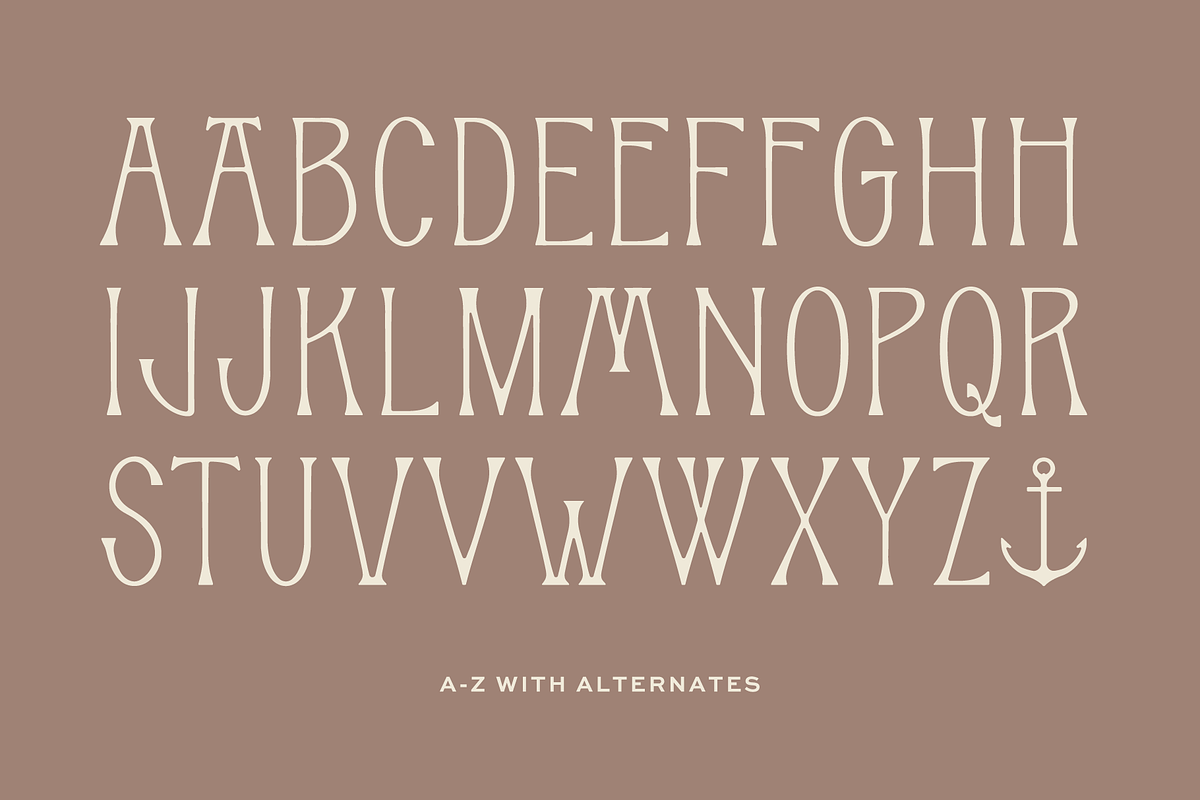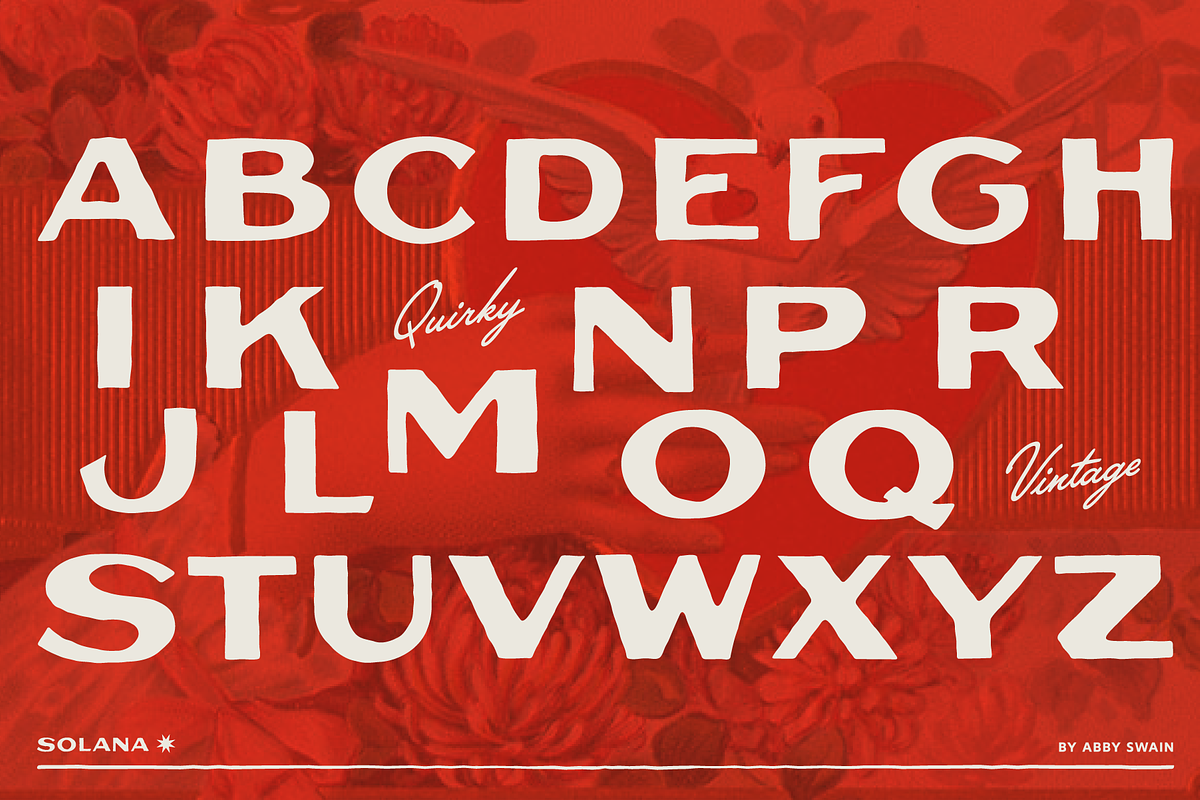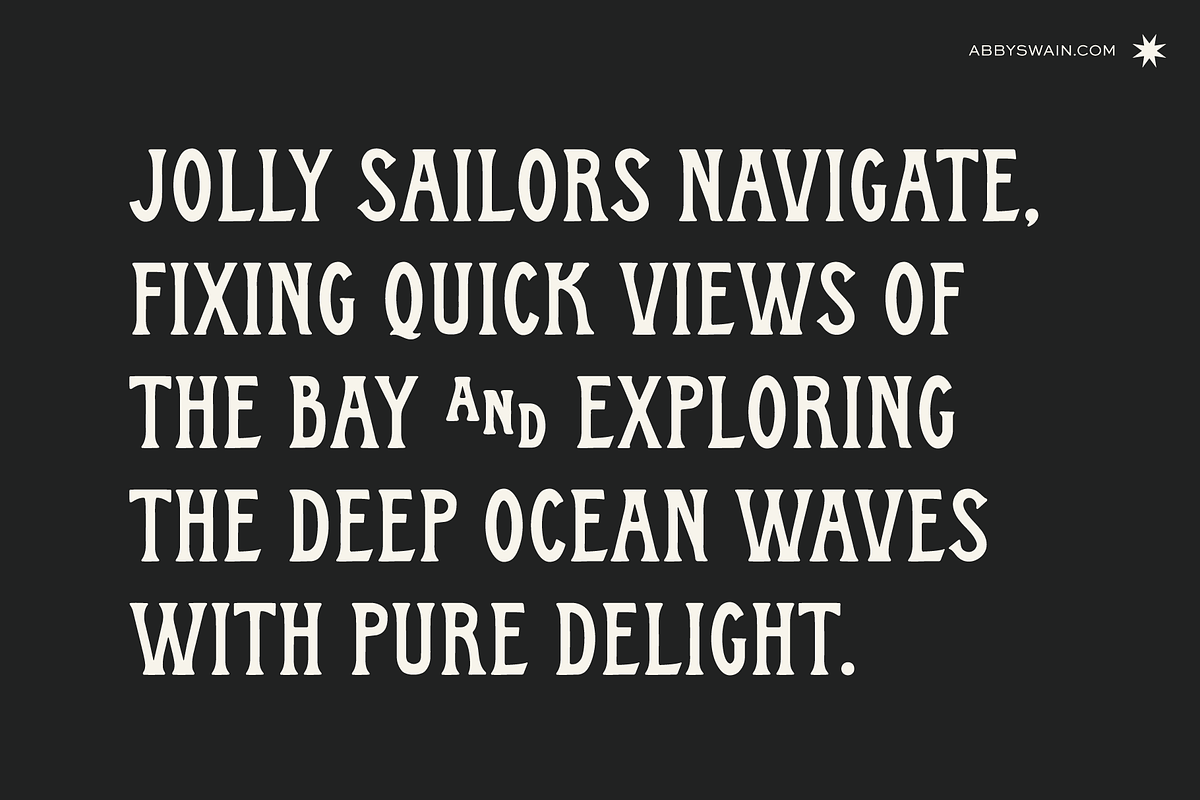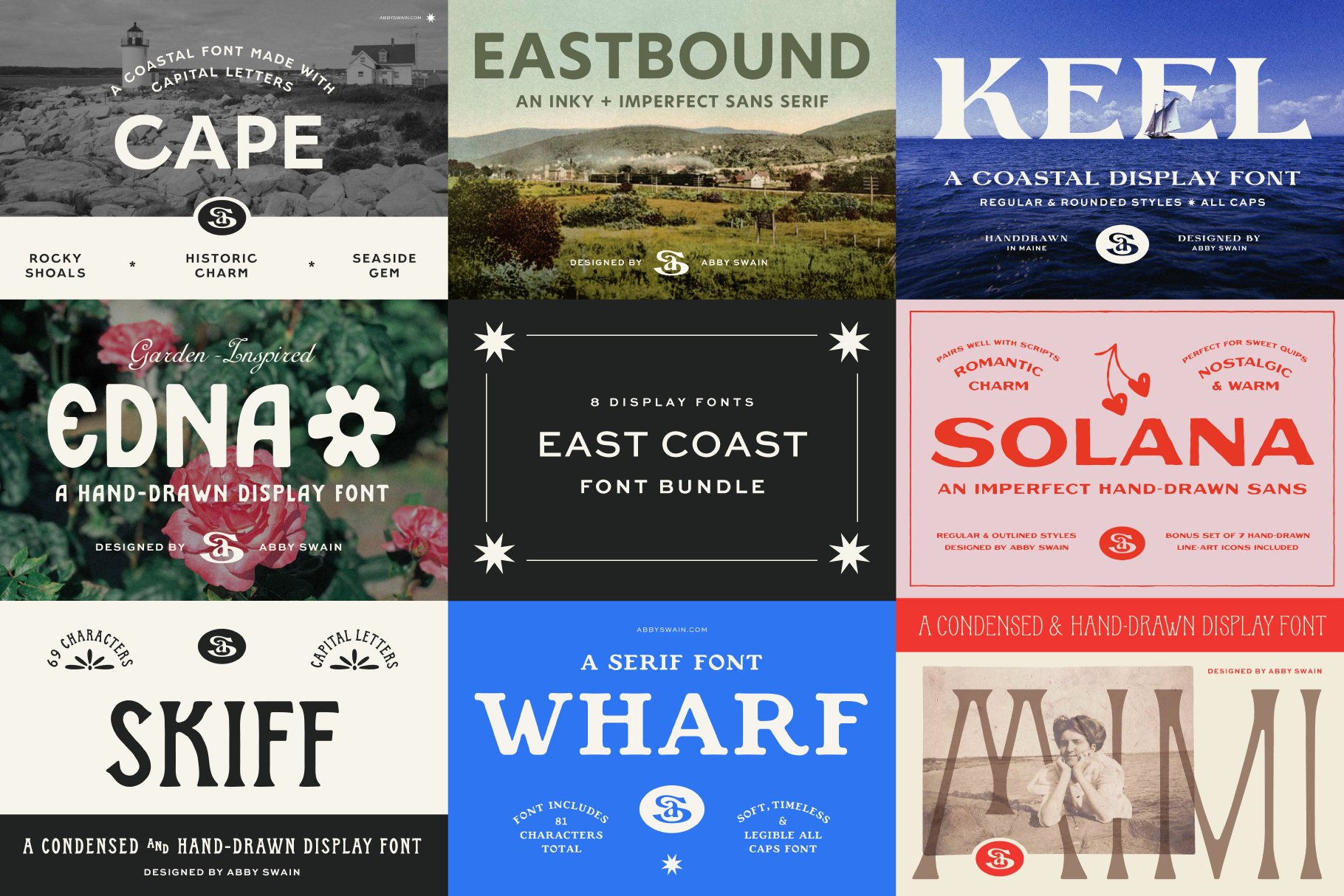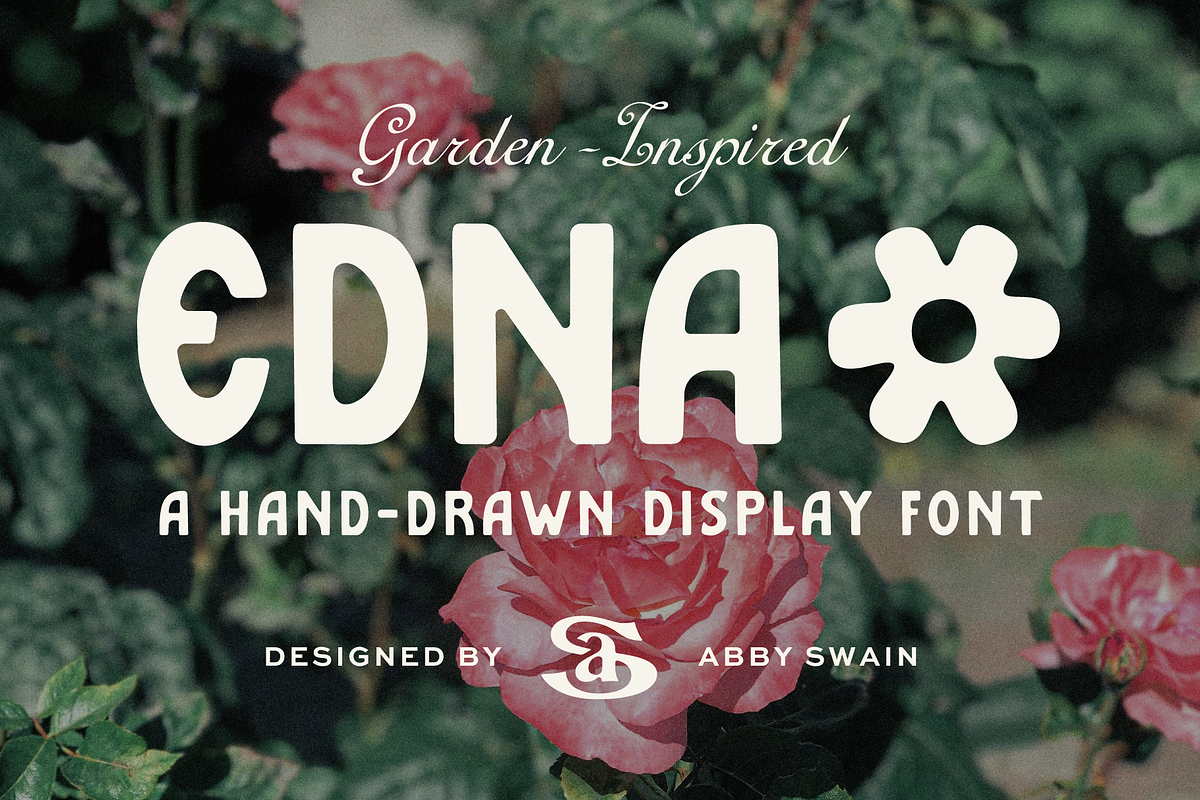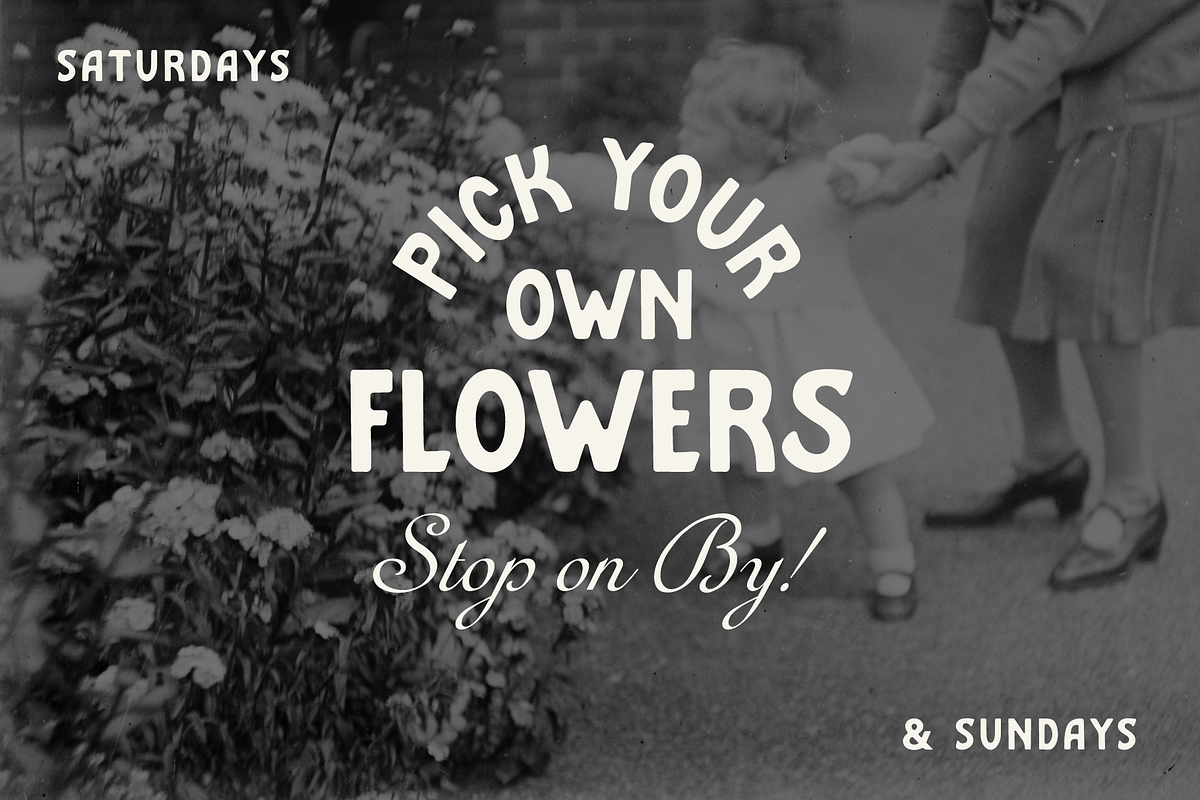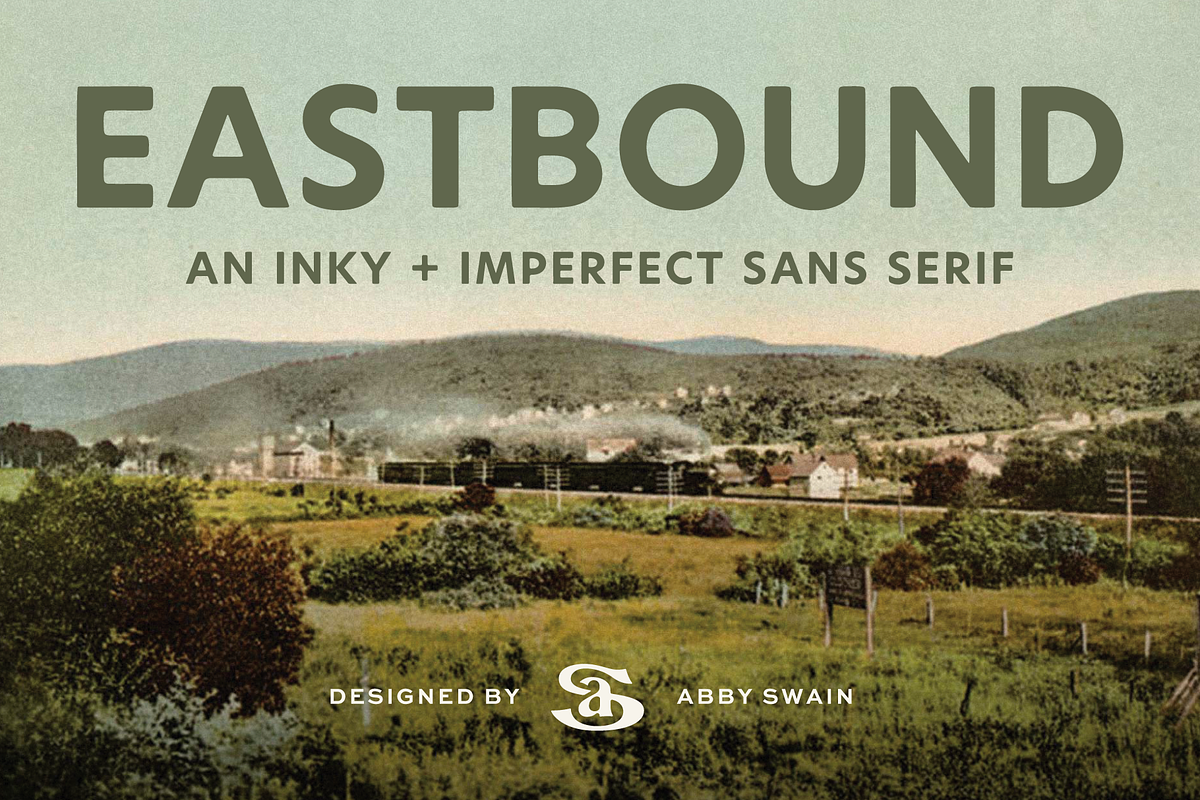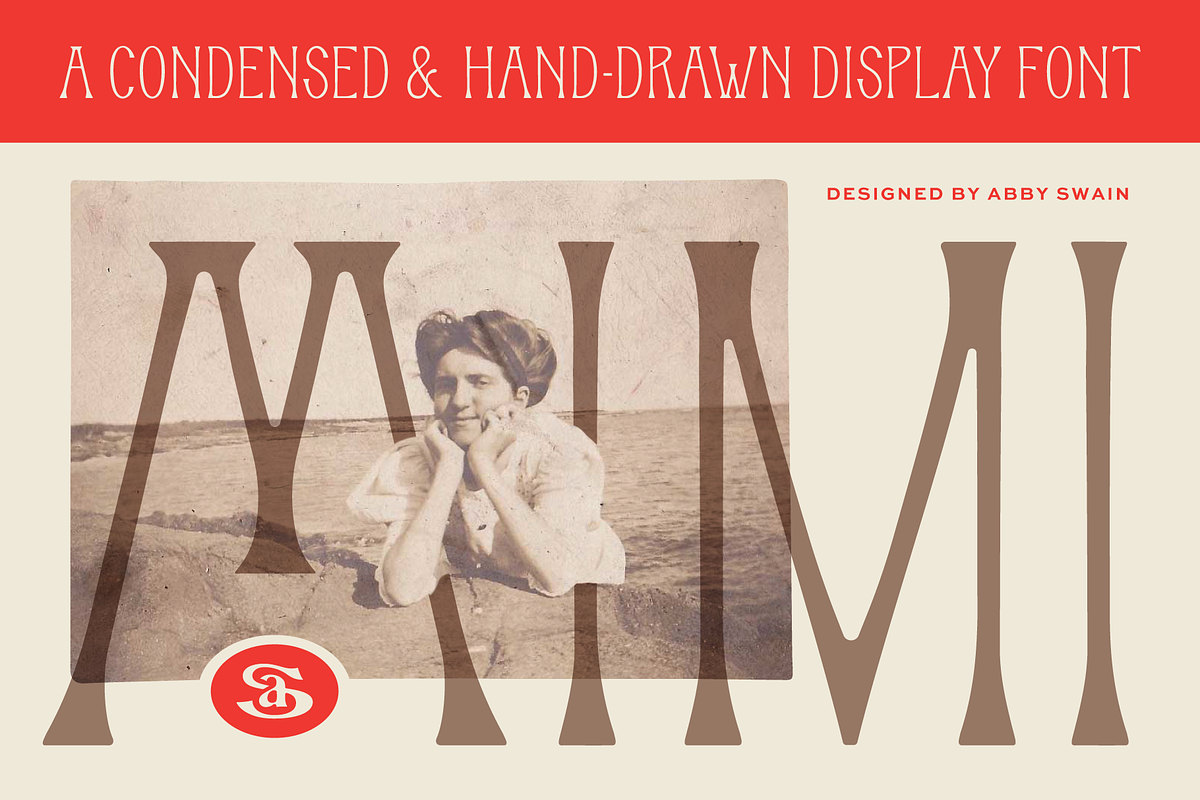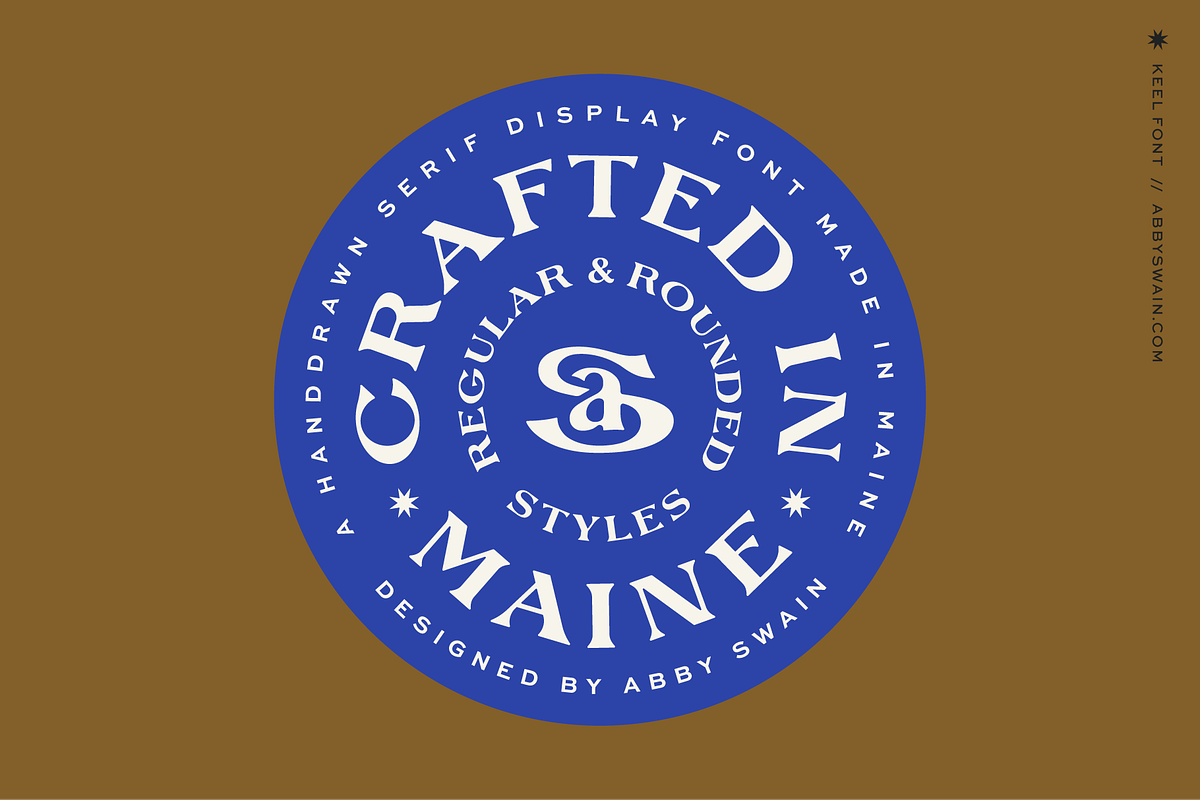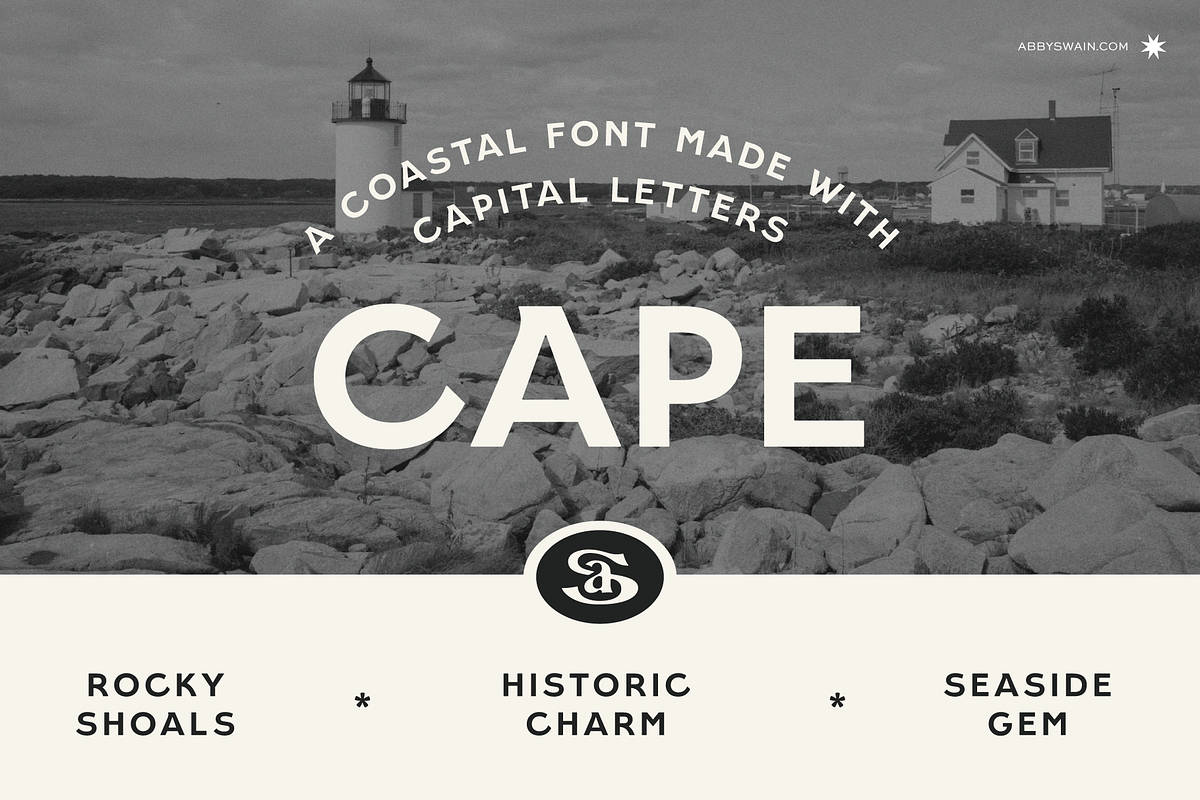
East Coast Font Bundle
Perfect for logo design, branding, packaging, editorial layouts, signage, and social media graphics. These hand-crafted typefaces bring a touch of nautical flair, vintage elegance, and modern versatility to your creative projects. Whether you're working on a coastal-themed brand or just love expressive display fonts, this bundle has something for you.